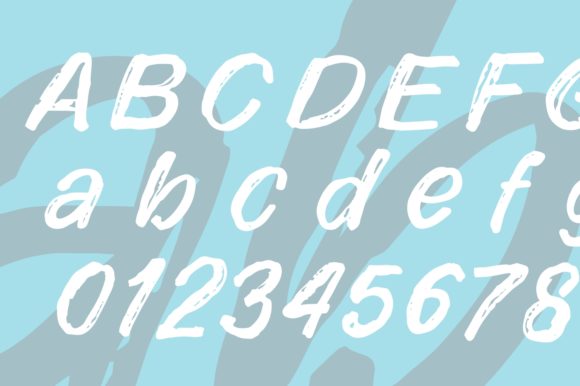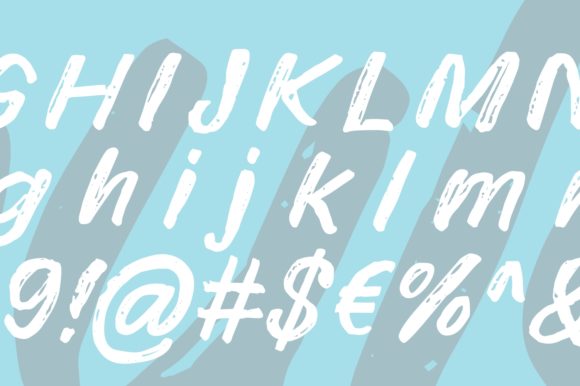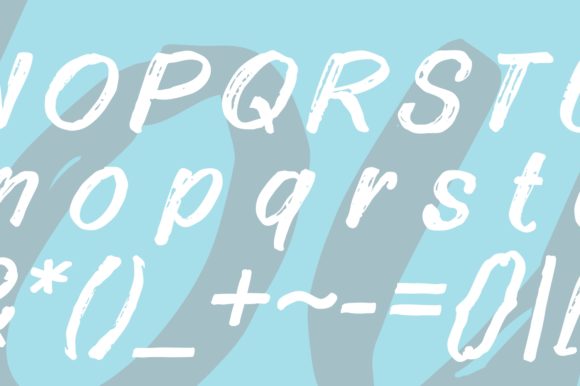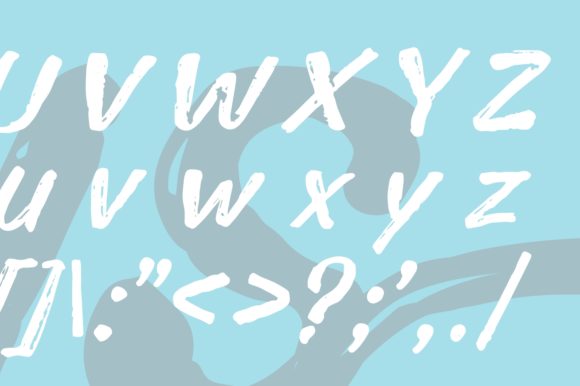
Vabulous Font
About Vabulous Font
Vabulous is a modern, fun handwritten font, created by using a brush pen. This font is the perfect fit for all of your logos, branding, social media, and crafty DIY projects.